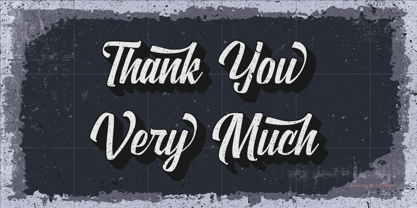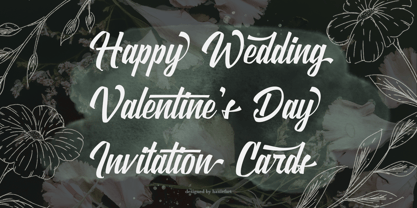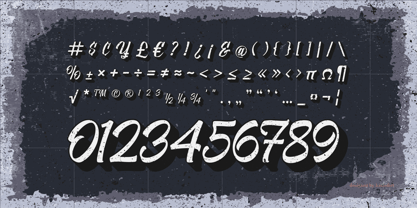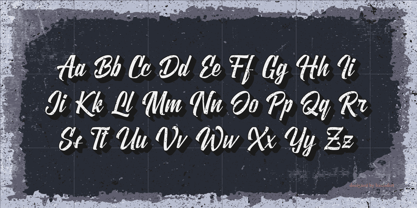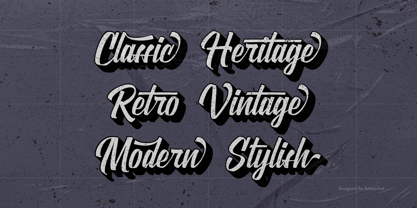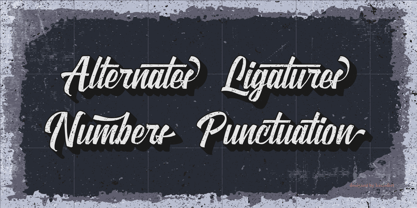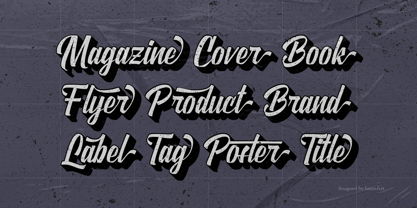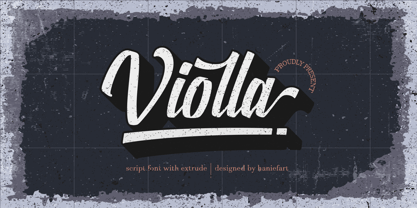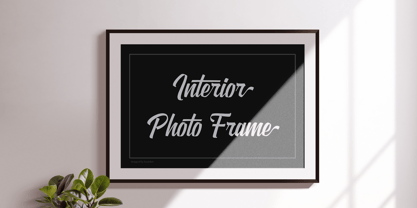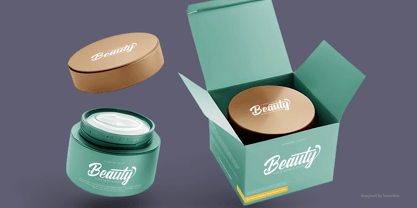
Violla
by Haniefart
The Violla Font Family was designed by Hanif Maulazi and published by Haniefart. Violla contains 2 styles and family package options.
Violla is a stunning handcrafted script font that effortlessly blends distinctive originality with artistic refinement. Designed with inspiration drawn from comprehensive sign painting and branding, the Violla script font features a versatile set of customizable characters, carefully crafted to elevate and enrich your creative work. With the Violla script font, you can inject vibrant charisma and irresistible charm into any enterprise. A versatile choice, it easily adapts and shines across multiple platforms, adorning glossy magazine layouts, lighting up book cover designs, unifying branding sequences, or even defining standout apparel designs. The Violla script font with its captivating appeal, makes it the perfect choice for designing unforgettable logos, eye catching headlines, dynamic flyers, and persuasive posters. The Violla script font continues to transform the ordinary into the extraordinary, one project at a time.
Designers: Hanif Maulazi
Publisher: Haniefart
Foundry: Haniefart